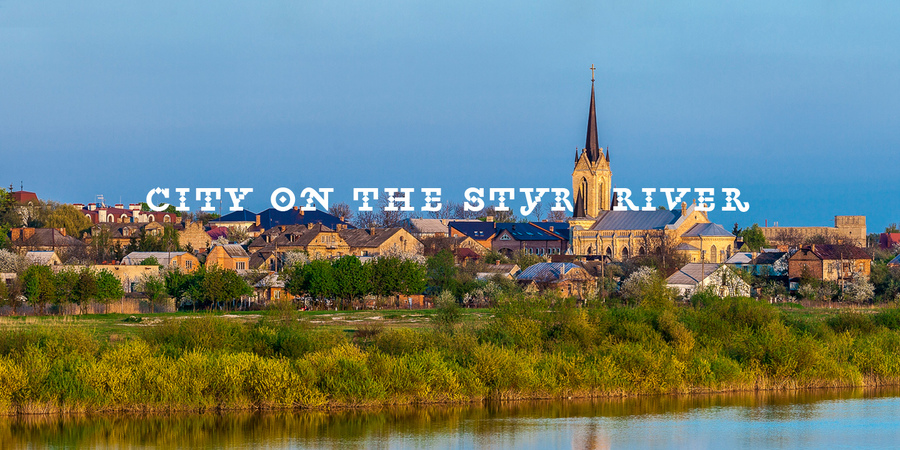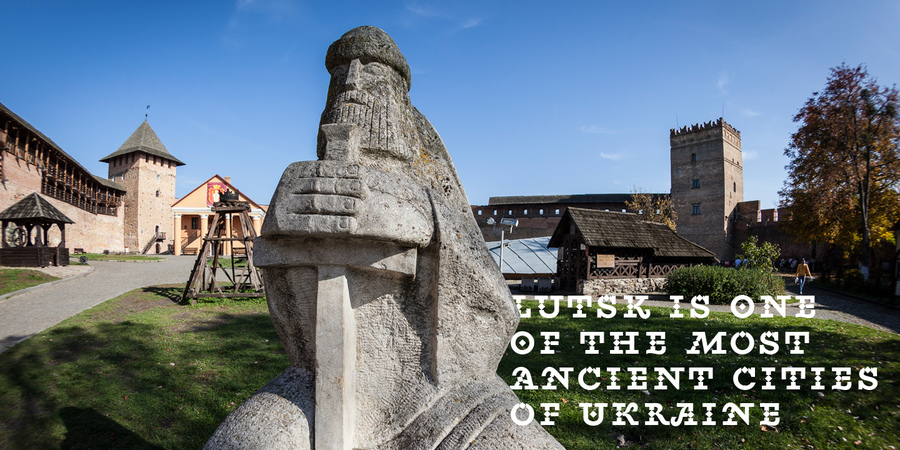
Lutsk Type is an all caps typeface and was designed as a display font, it can be used in many ways. This font works perfectly in book covers, greeting cards, invitations, weddings, posters, magazines, fashion world, logos, packagings, letterpress,etc
The typeface was designed by Kyrylo Tkachov in 2017.
Features of font family Lutsk TypeThe hit of the decade:
Associations for font family Lutsk TypeTypeface personality and character:
original, notable, splashy, solid, architectural, sharp, daring, distinctive, cutting, ethnic, traditional, proud, picturesque, artistic, wooden, manly, dynamic, freewheeling, strong, temperamental, motivating, active, ambitious, severe, rude, rigid, crisp, workman, beery, generous, voiced, musical, handicraft, alive, glad, playful, cheerful, beautiful, party, delicious, bright, angular, broken, fashionable, strange, ancient, ironic, fresh, expressive, hot, fiery, craft brewed, stone, witty, exotic, abundant, plentiful, saturated
Typeface associated with activities:
architecture, sculpture, history, literature, theater, vodka, alcohol, reconstruction, tattoo, souvenir, snack, spice, beer, tavern, monument, memorial, weapons, craft, blacksmith, tobacco, cinema, pub, fair, attraction, entertainment, game, restaurant, cafe, club, partying, bar, cocktail, furniture, gifts, celebration, meat, dinner, food, interior, music, night club, city, clothes, decoration, tourism, museum, trophy, reward, embroidered, ethnography, bank note, coin, graphics, illustration, rock, flag Typeface associated with age:
Typeface associated with gender:
Geographic association of the typeface: